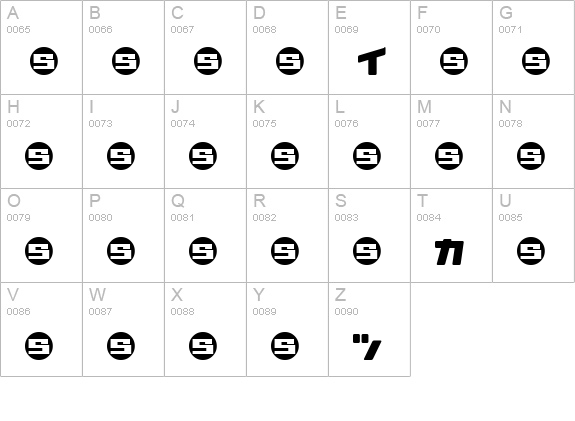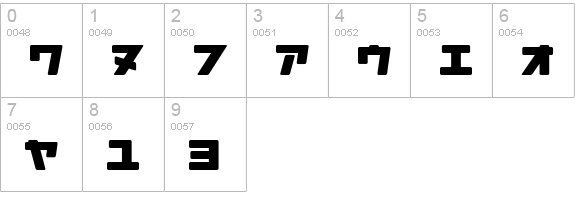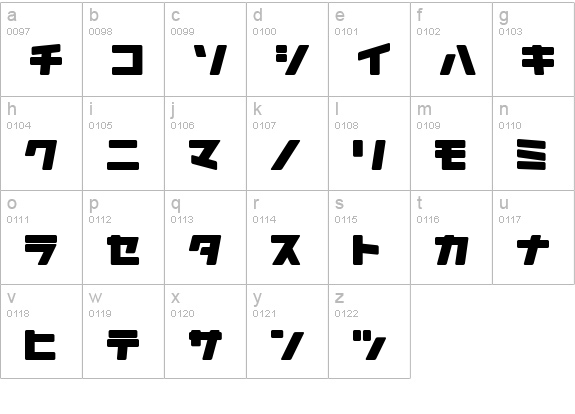
Daidoh Remix RoundJka Font Details
Daidoh Remix RoundJka font is a stunning display typeface that seamlessly combines elegance with a touch of playfulness. Its unique design features rounded edges and smooth curves, giving it a modern and approachable look. This font is perfect for a wide range of creative projects, including logos, branding, posters, and packaging. What makes Daidoh Remix RoundJka font even more appealing is that it is free to download at FontsMarket.com. This means that you can easily access and use this versatile font without any cost. Whether you are a professional designer or a hobbyist, this font is a valuable addition to your font collection. With its wide range of weights and styles, Daidoh Remix RoundJka font offers flexibility and versatility. From bold and eye-catching headlines to elegant and sophisticated body text, this font has it all. Its legibility ensures that your message will be effectively communicated, no matter the size or medium. The attention to detail in this font is evident in its well-crafted letterforms and balanced proportions. Each character is meticulously designed to create a harmonious flow and visual impact. Whether you are using it for print or digital purposes, Daidoh Remix RoundJka font will elevate your designs and captivate your audience. Downloading Daidoh Remix RoundJka font from FontsMarket.com is a hassle-free process. Simply visit the website, search for the font, and click the download button. Once you have the font, you can start unleashing your creativity and experimenting with different typographic compositions. In conclusion, Daidoh Remix RoundJka font is a versatile and visually appealing typeface that is freely available to download at FontsMarket.com. With its elegant yet playful design, this font is suitable for a wide range of creative projects. Download it today and let your designs stand out with this remarkable font.